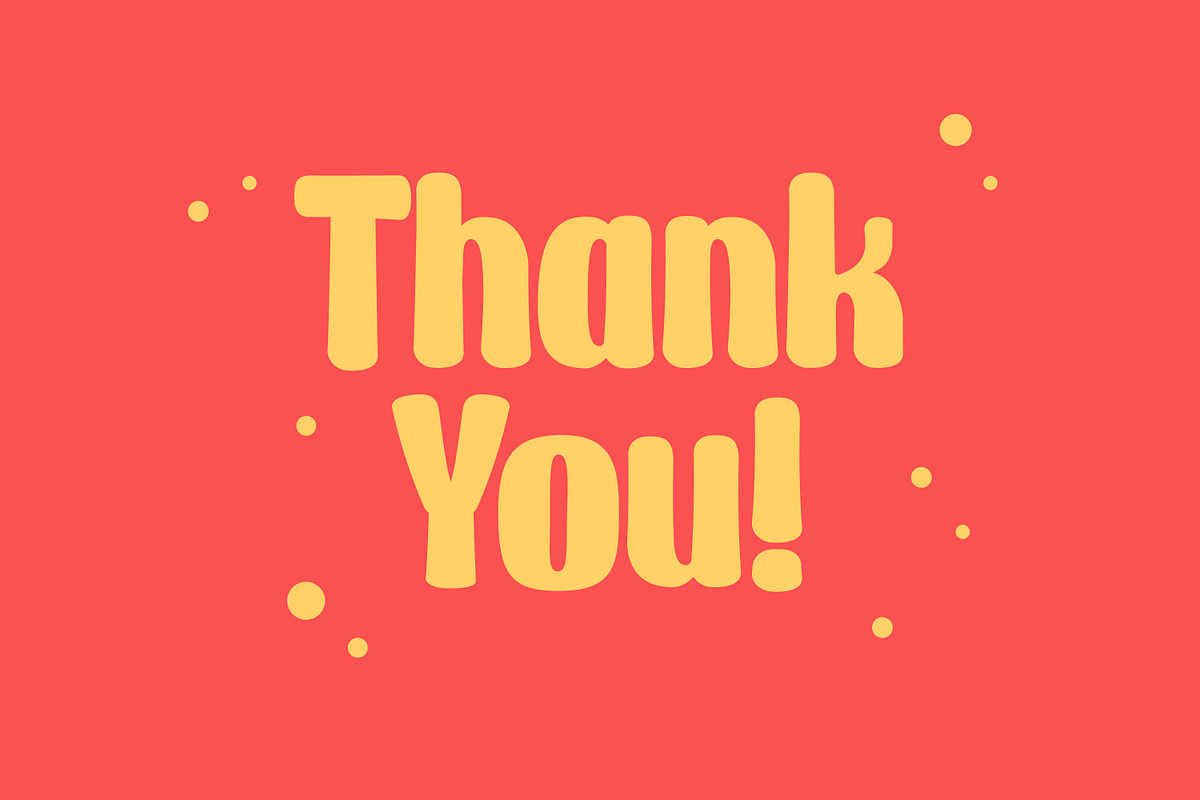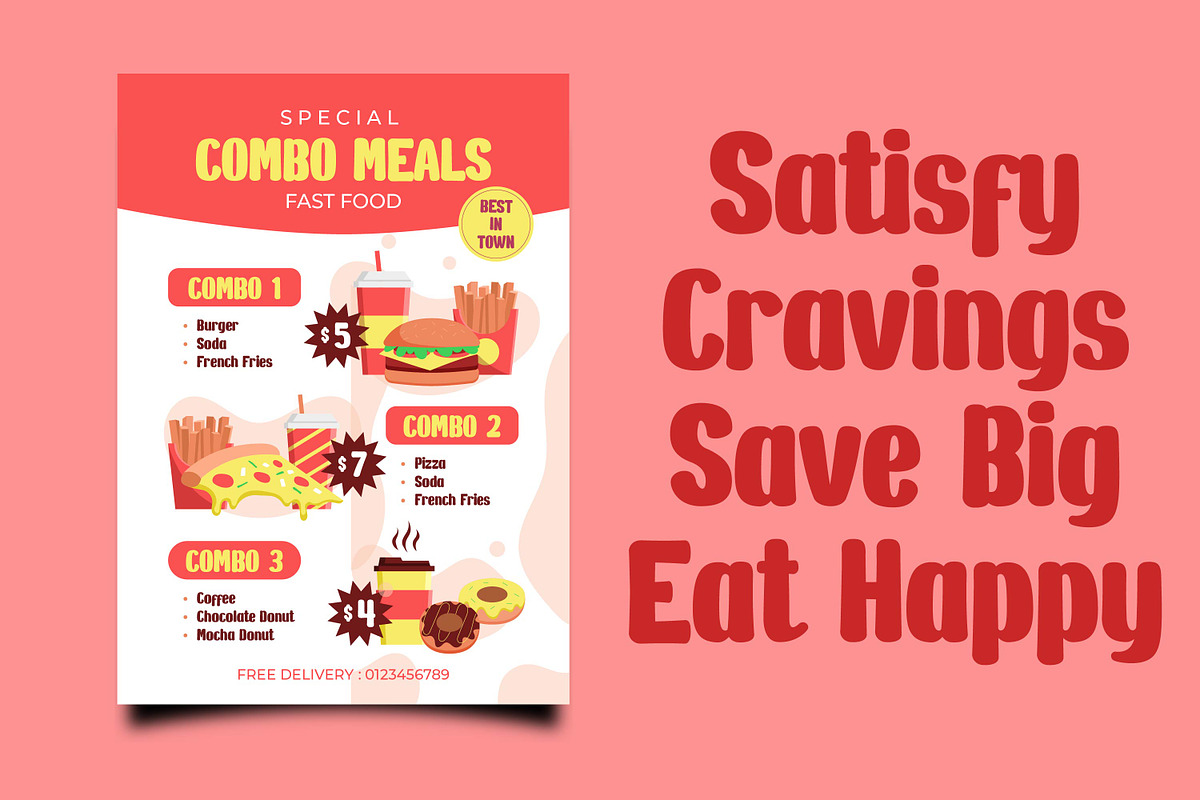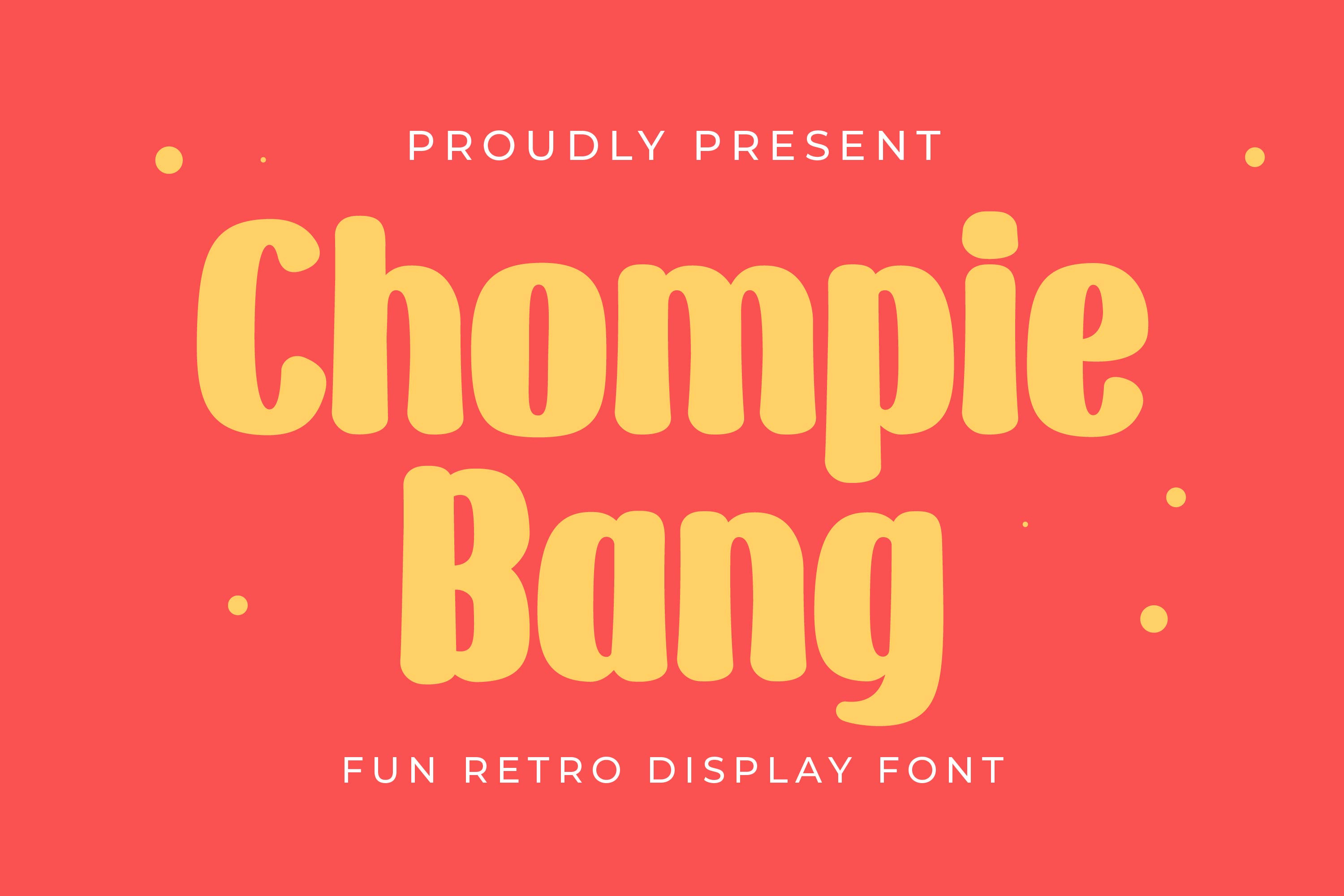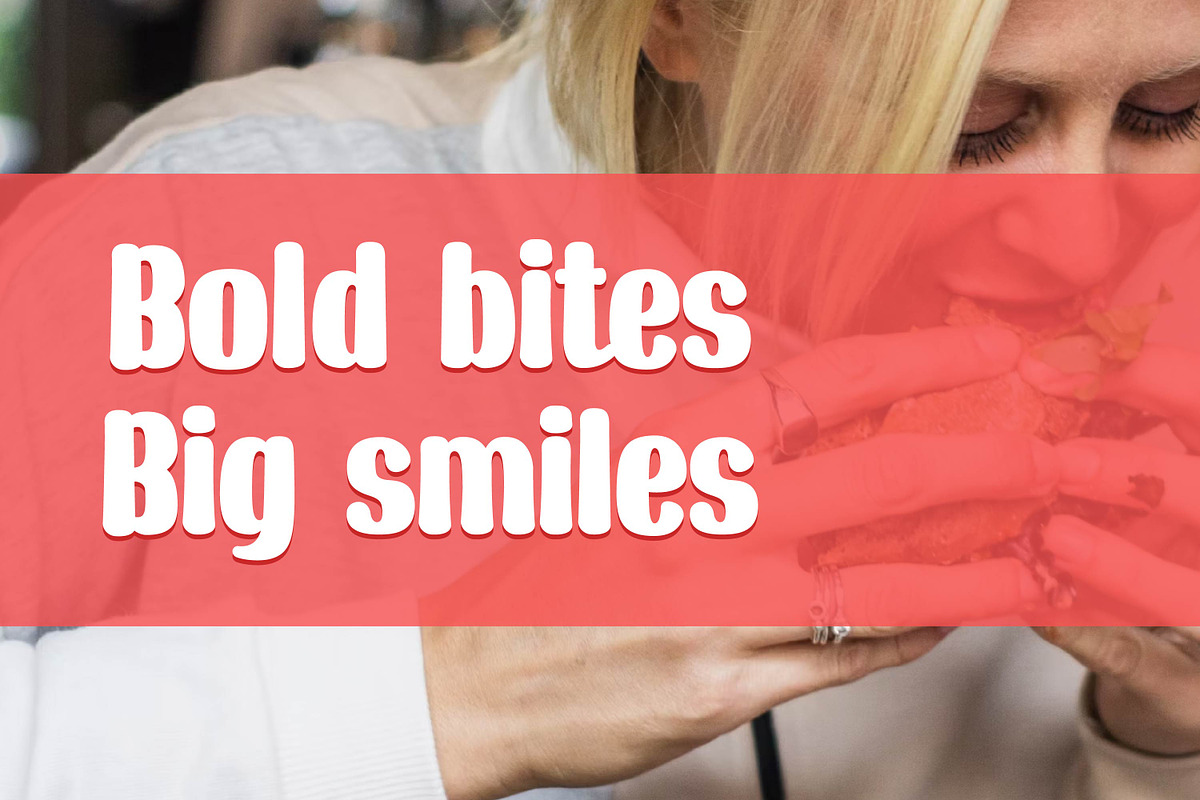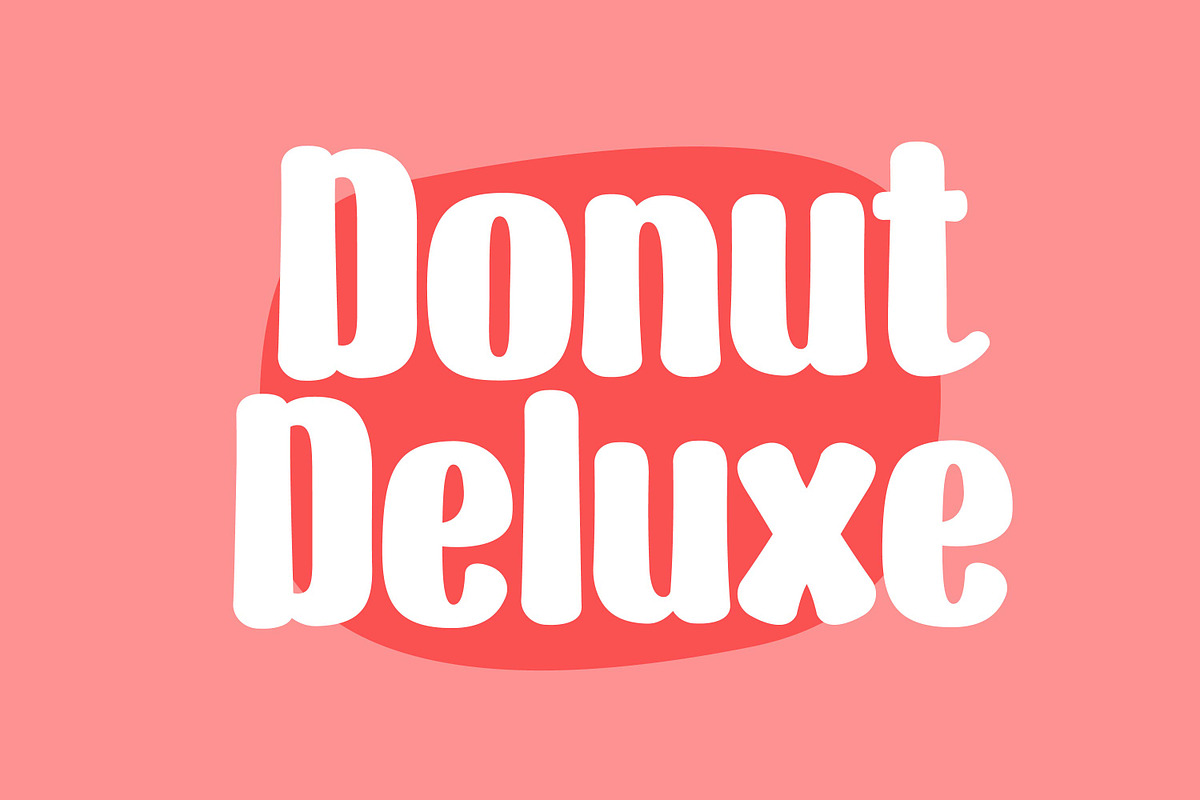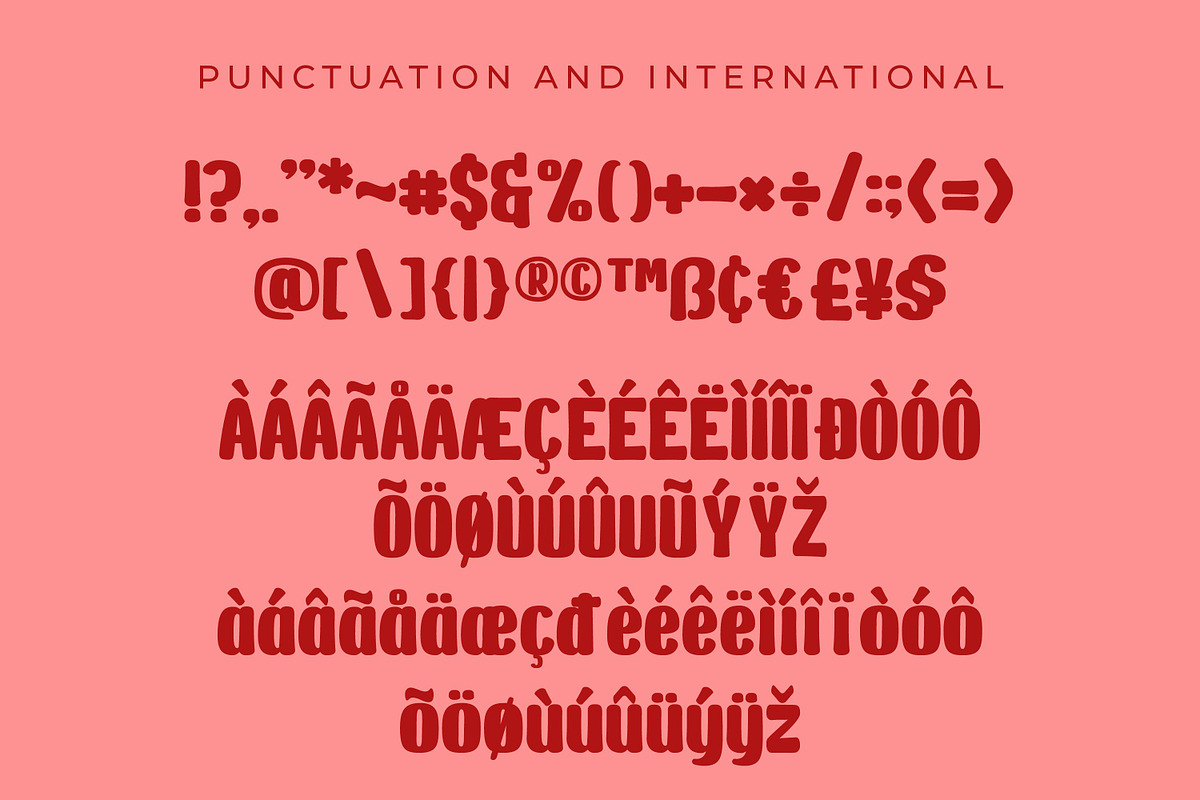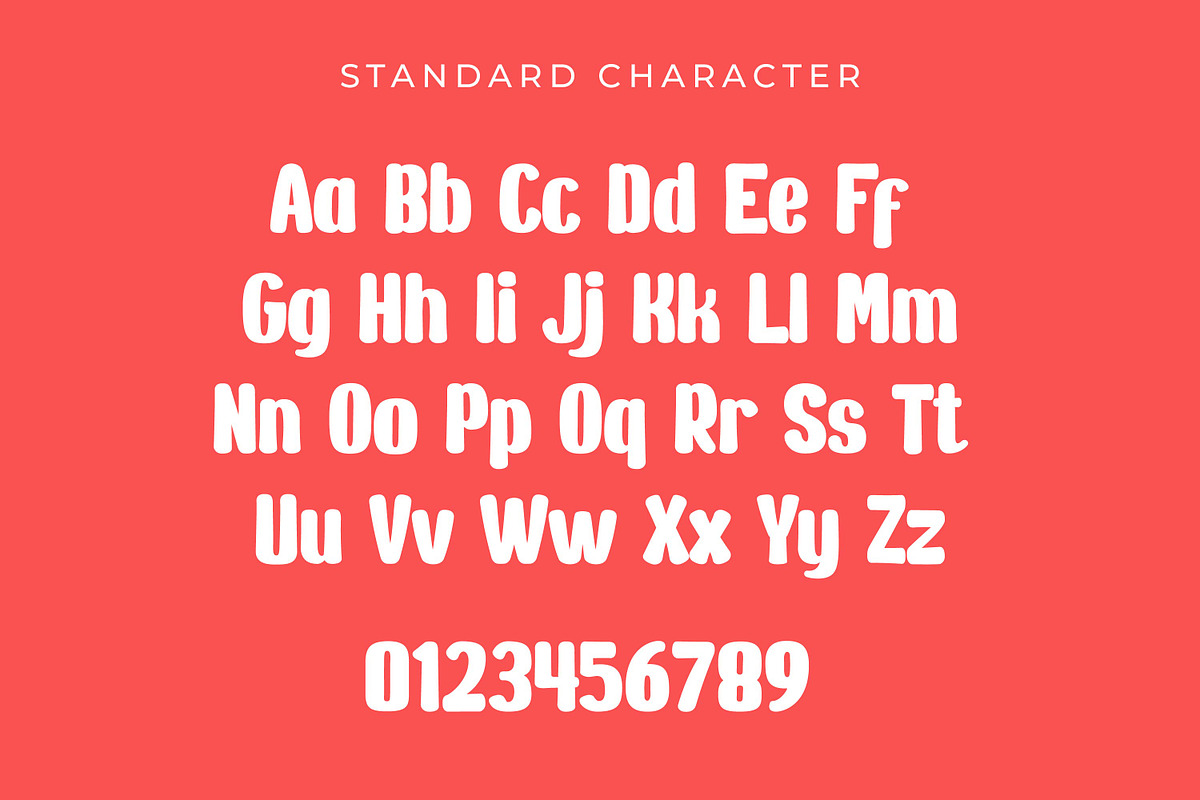
Chompie Bang Fun Retro Display Font
Chompie Bang is a bold, rounded display font designed to make your message stand out with fun and charm. Its thick strokes and soft curves bring an approachable and cheerful feel, perfect for children’s content, toy packaging, birthday invitations, or quirky headlines. Add a burst of friendliness and impact to your next design with this lovable typeface!